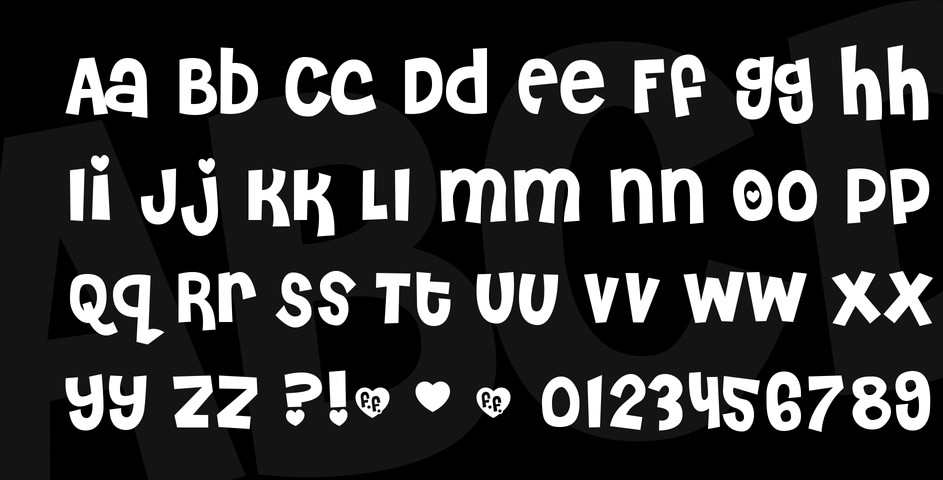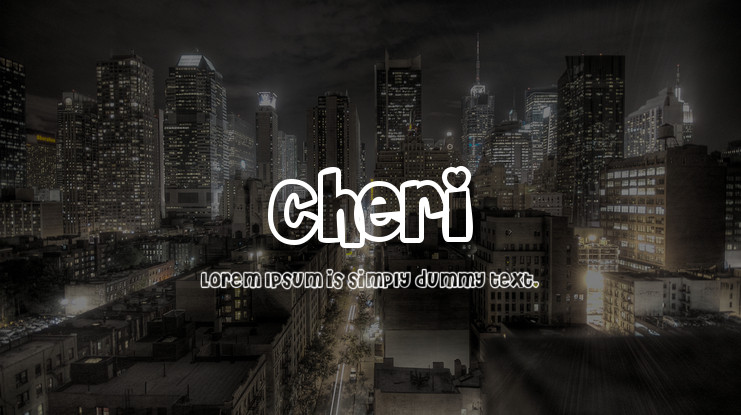
Cheri Font
Here is the Cheri font that is considered as the best text generator it is also known for its copy and paste function it is similar to the beauty and the beast font. Its type is reminiscent of gothic timber sorts but more geometric. This makes for charmingly considered actually one in every shape of individual that align perfectly, no matter the truth that used at terrific sizes. But, that is a clean looking and in reality strong font if you need to provide you with the consequences you want.
It’s far been included as font choice and is one of the unusual fonts for the famous layout. Cheri Font Free Wich makes it very last for designing emblems for startups, internet pages, and gift-day manufacturers. The font is obtainable in 2 versions: commonplace and outline. A sans-serif font that is similar to flaming script from tool-kind foundry basically based totally simply mostly on the idea of its letterforms characteristic circles which might be almost however not as a probable final.
Download Furthermore, components have one hundred glyphs and one hundred alternate characters. The font consists of all characters in every uppercase and lowercase letters. It is a gift-day voga font with a futuristic format. This font is proper for crafting social media posts, t-shirts, net web page online headers, and in addition.